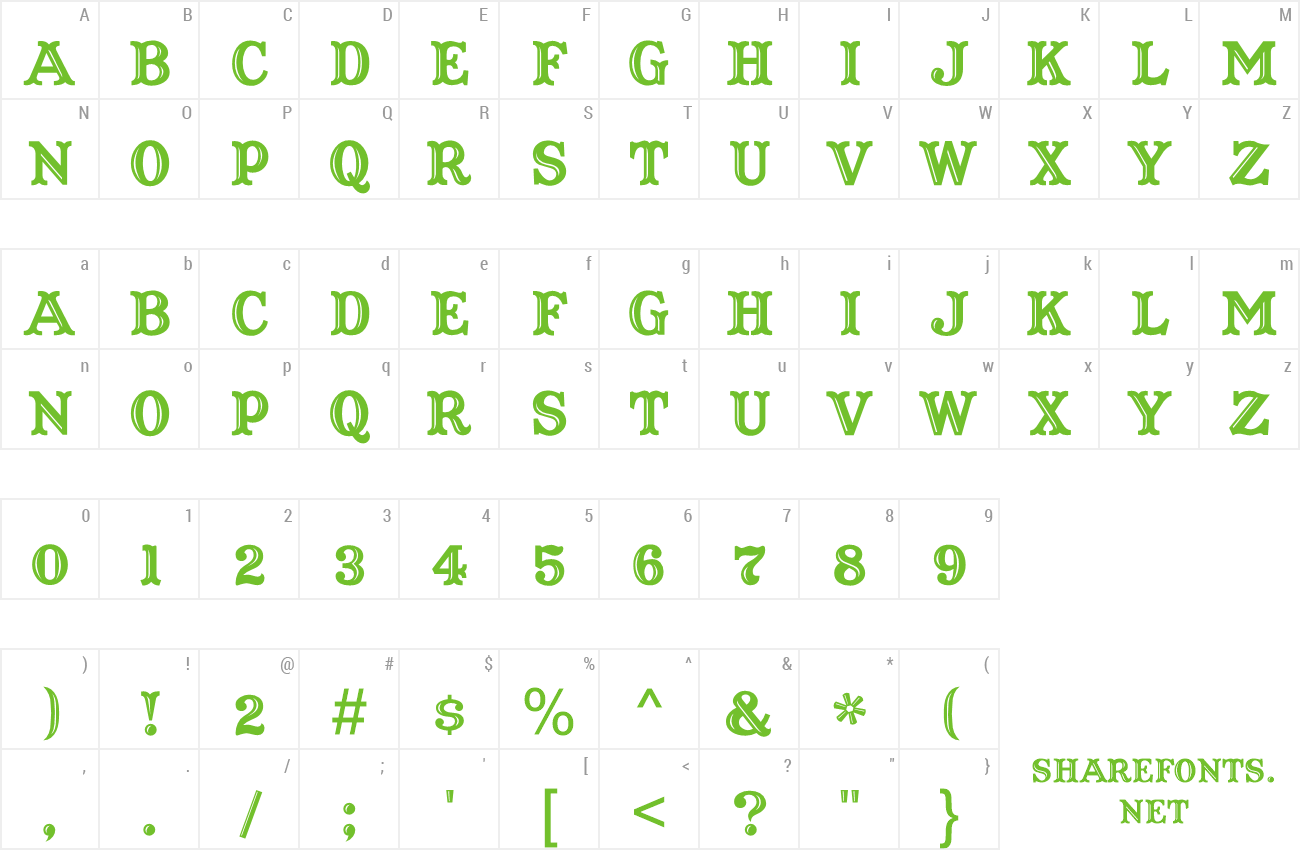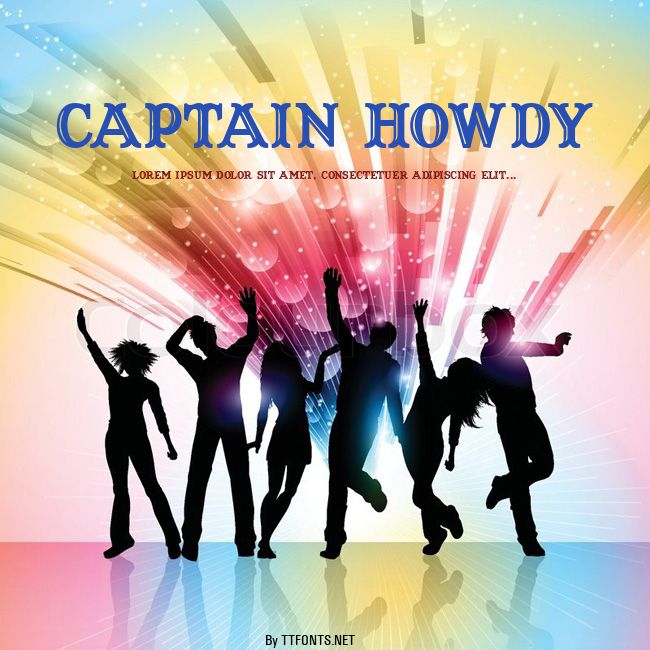
Captain Howdy Font
Captain Howdy Font - Captain howdy font | download captain howdy for windows and mac | category:. Web captain howdy font is the typeface known as a wood type, “circus,” or “western” font that is frequently found on. Web captain howdy font by harold's fonts. Captain howdy was inspired by the font. Web download captain howdy for free, view sample text, rating and more on fontsgeek.com.